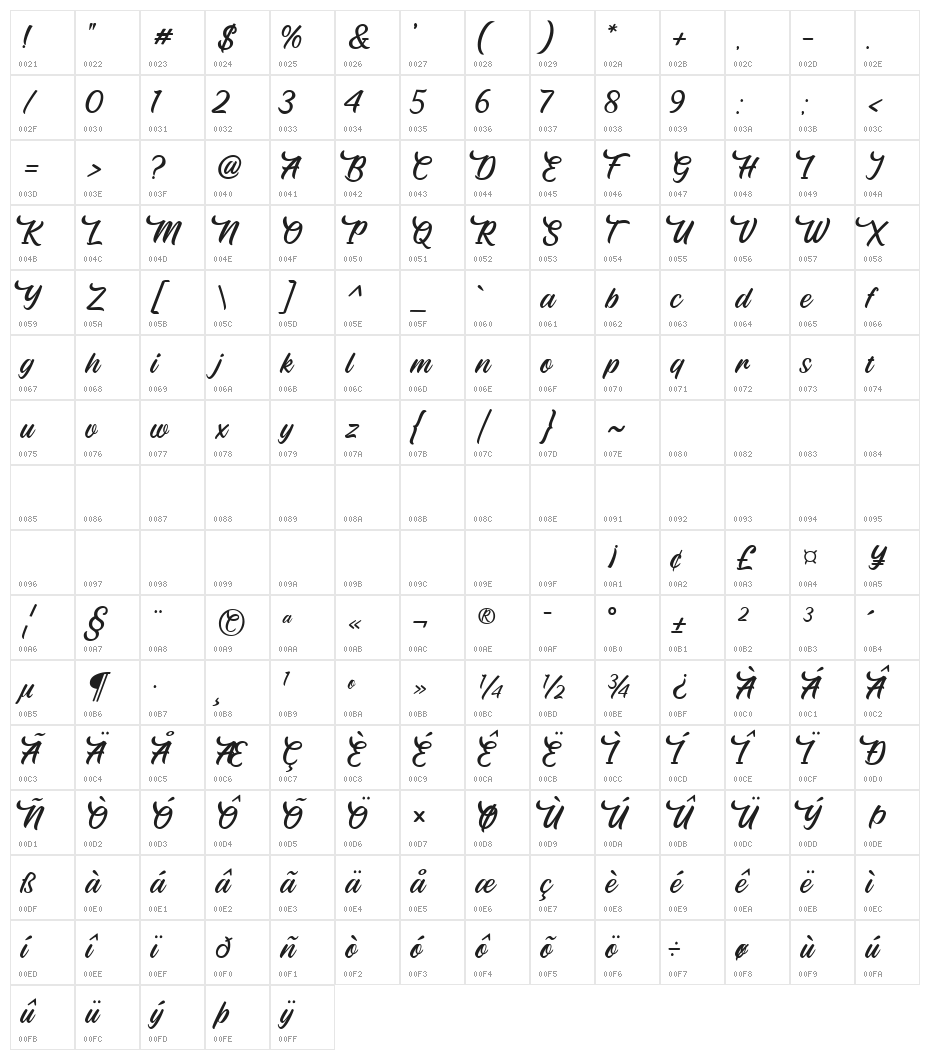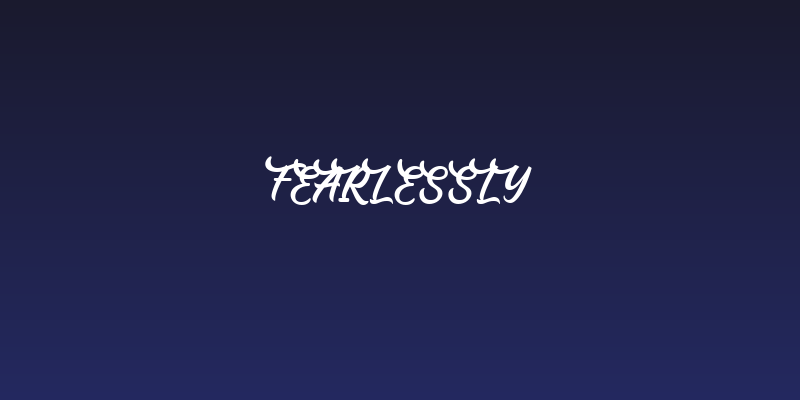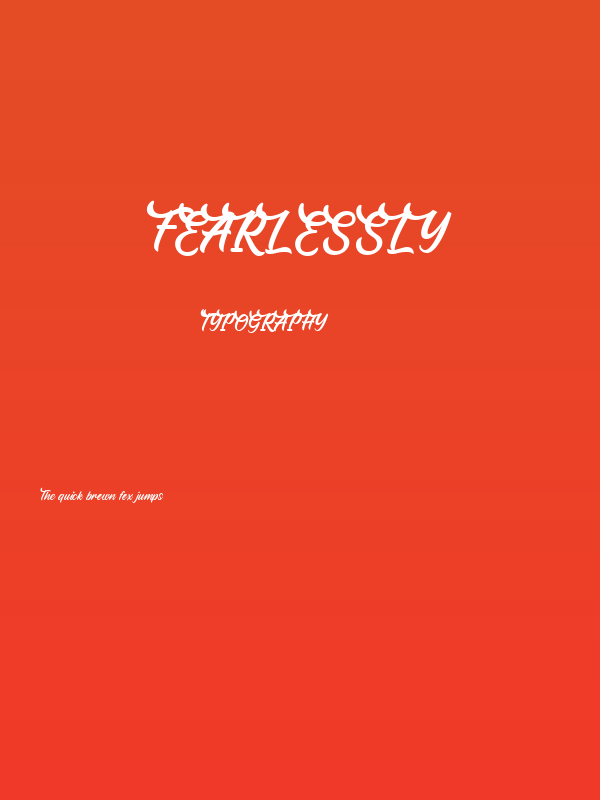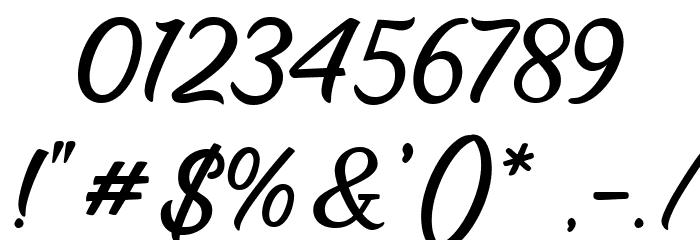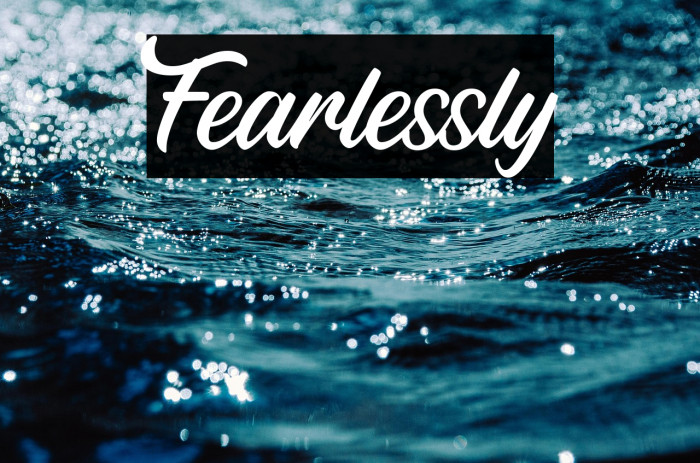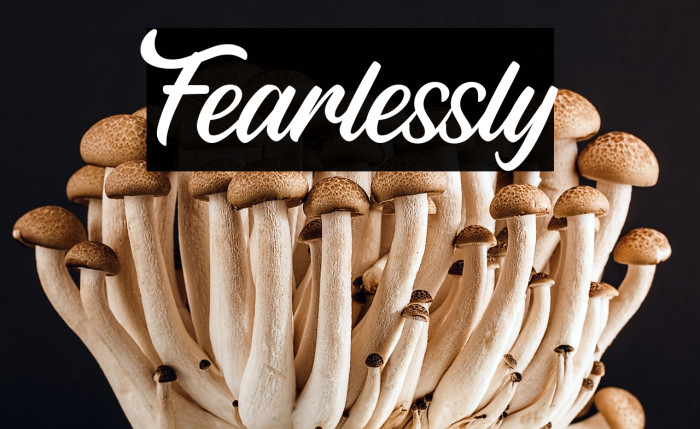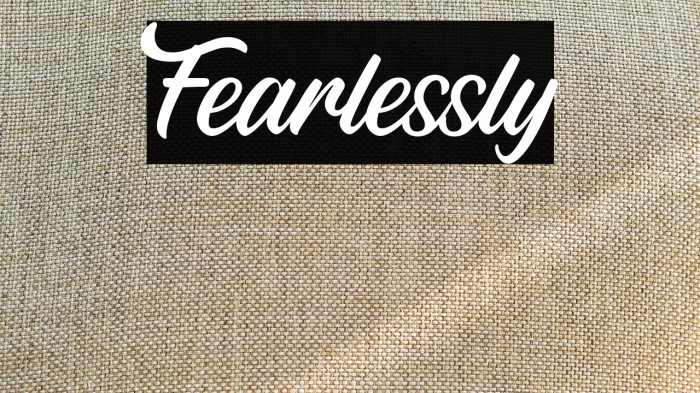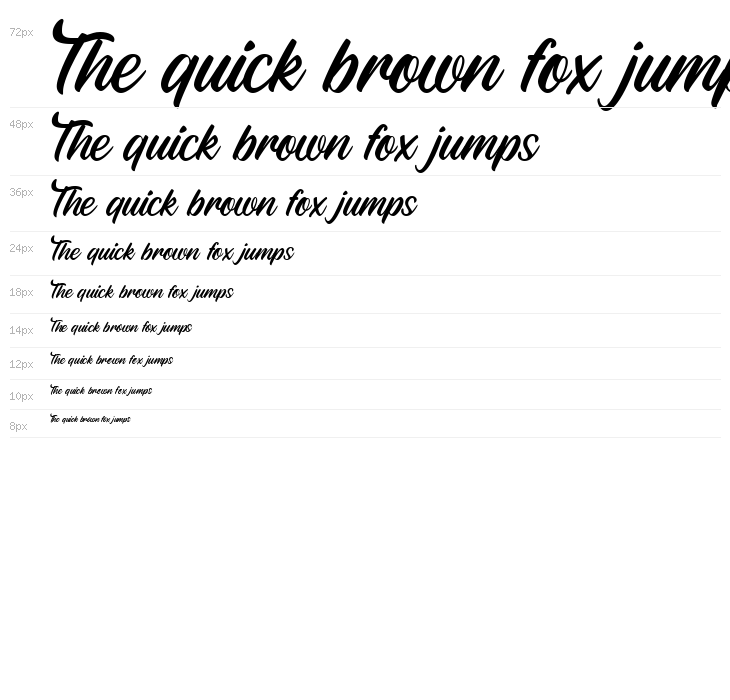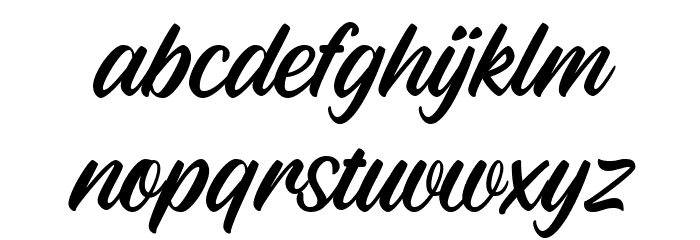
Fearlessly Font
Fearlessly Description
This font features a bold and flowing script style, characterized by its elegant and dynamic curves. The uppercase letters are particularly ornate, with sweeping lines and flourishes that give a sense of movement and grace. The lowercase letters maintain a consistent style, offering a harmonious blend of readability and artistic flair. Numbers and special characters are designed to complement the overall aesthetic, ensuring a cohesive look across all text elements. This font's bold strokes and smooth transitions make it ideal for creating impactful and stylish designs.
| Proposed Projects | Ideal for wedding invitations, branding, logo design, and elegant signage. |